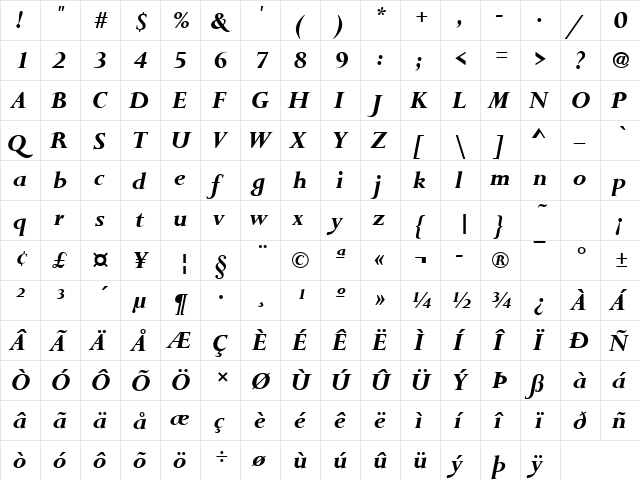
URWPerseusT Bold Italic
Design Context for URWPerseusT Typeface
URWPerseusT offers clean, dependable letterforms without strong stylistic allegiance, making it a practical choice for designers who need flexibility. The slanted form adds forward momentum and visual energy. The heavy weight commands attention and anchors typographic hierarchies.